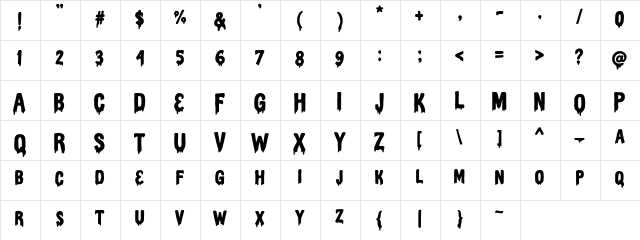
Haluween Regular
Design Context for Haluween Typeface
Haluween is a composed and adaptable typeface that performs quietly and consistently across a wide range of design contexts.